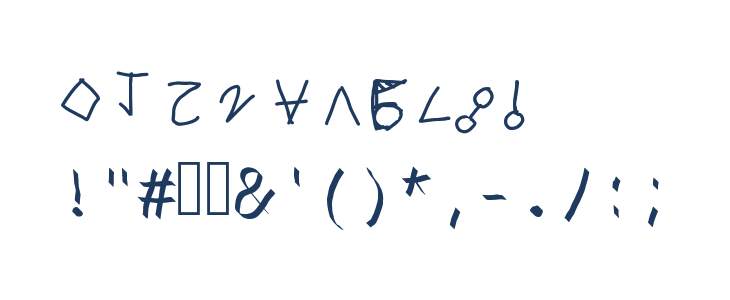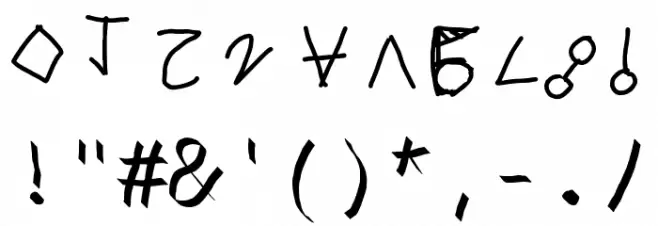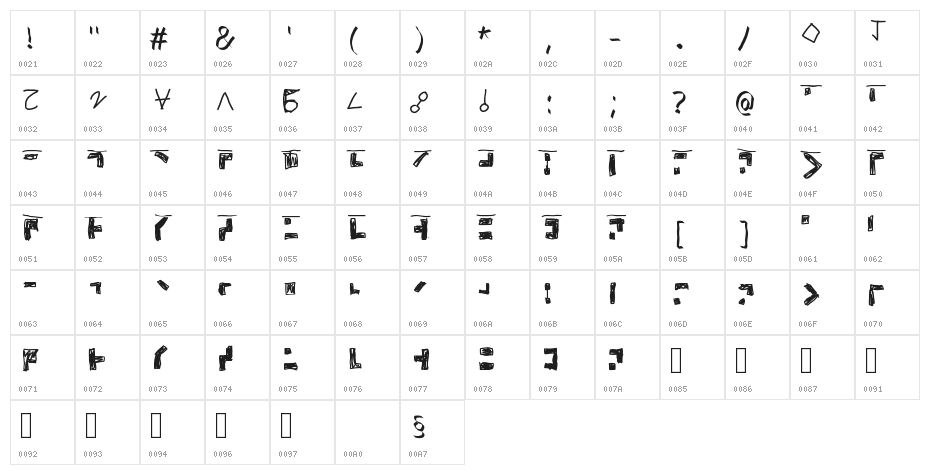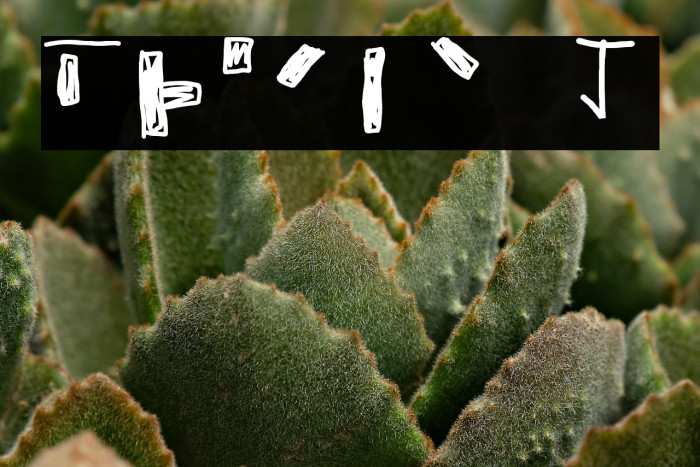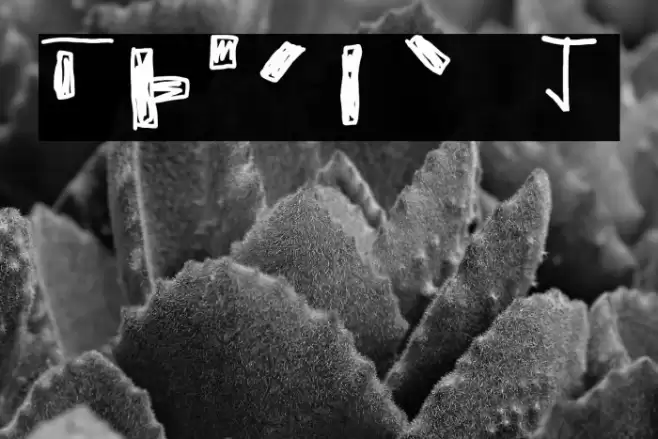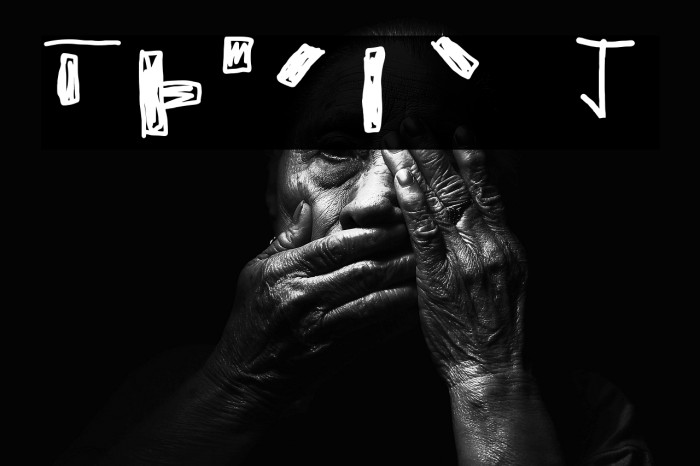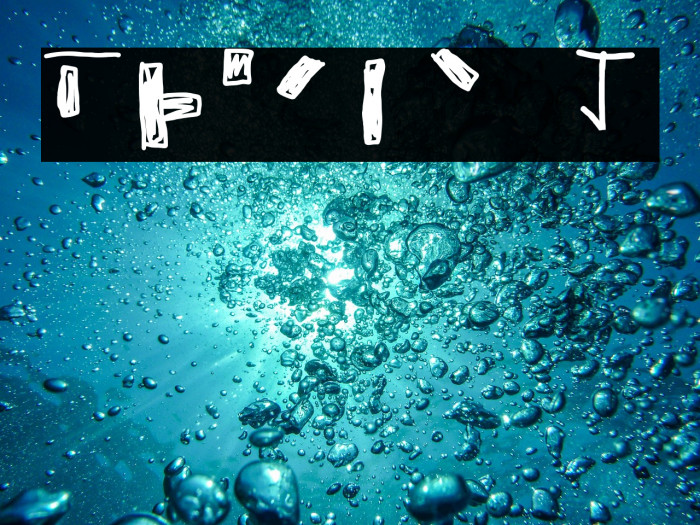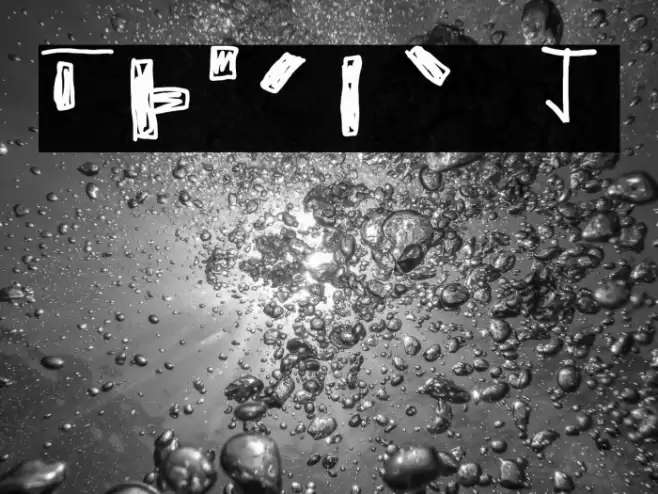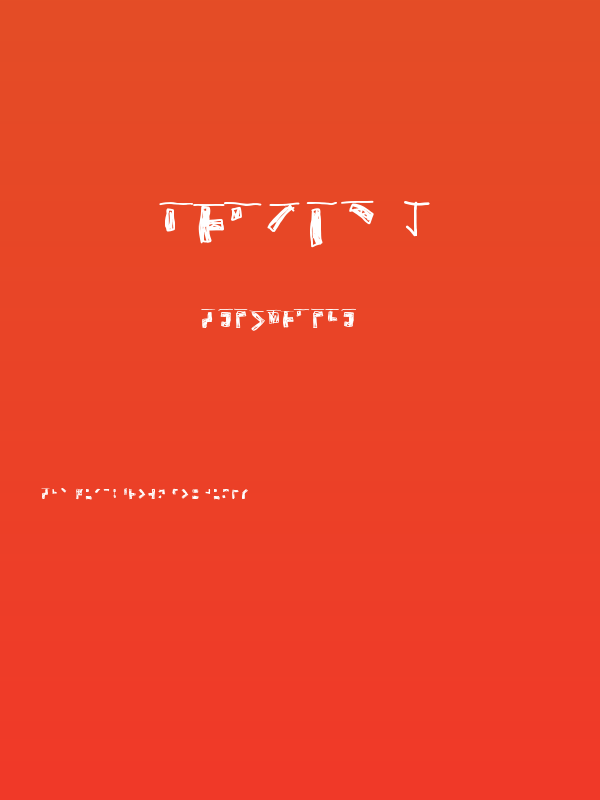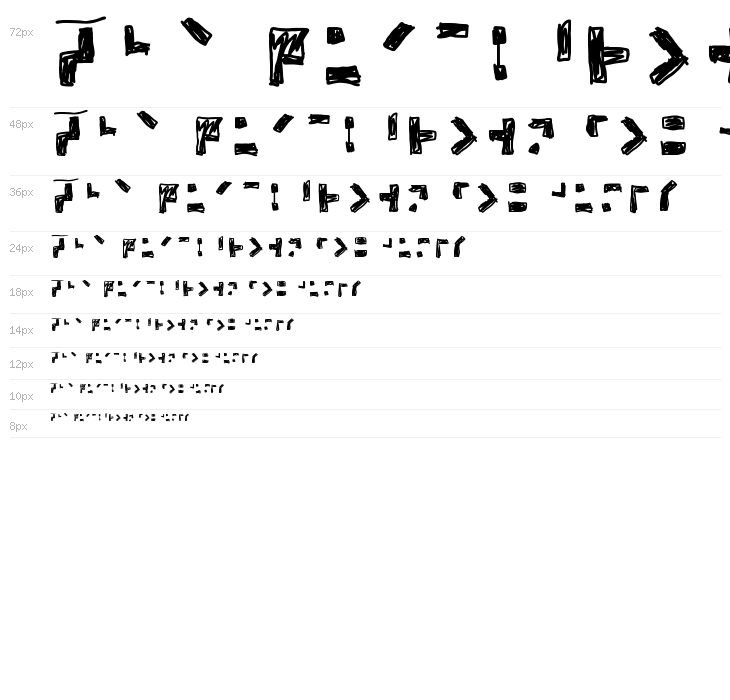
Braile 1 Font
Braile 1 Description
This font features a highly abstract and artistic style, resembling a hand-drawn or sketched appearance. The characters are composed of bold, irregular strokes, giving them a unique and expressive look. The font lacks uniformity, with each character appearing distinct and individualistic, contributing to an overall chaotic yet intriguing aesthetic. The design is reminiscent of graffiti or street art, with a raw and unrefined quality that adds to its charm. The characters are not easily legible, making this font more suitable for decorative purposes rather than for conveying clear textual information.
| Use Case | Logos, Artistic projects, Decorative elements |
| Proposed Projects | Ideal for artistic projects, album covers, street art designs, or any creative work that benefits from a raw, expressive style. |